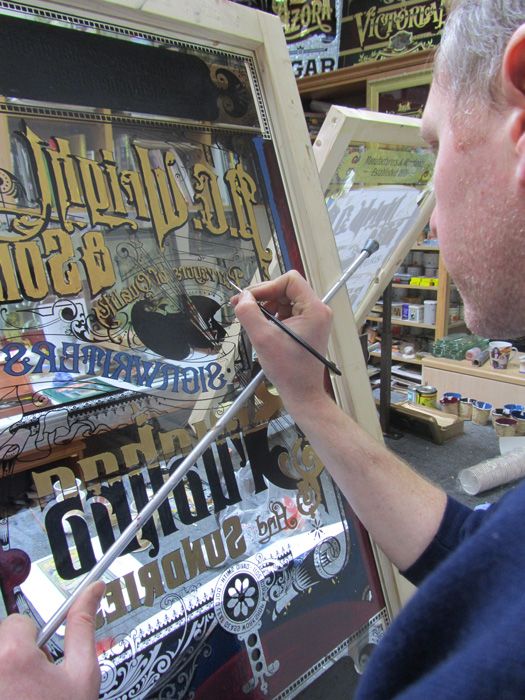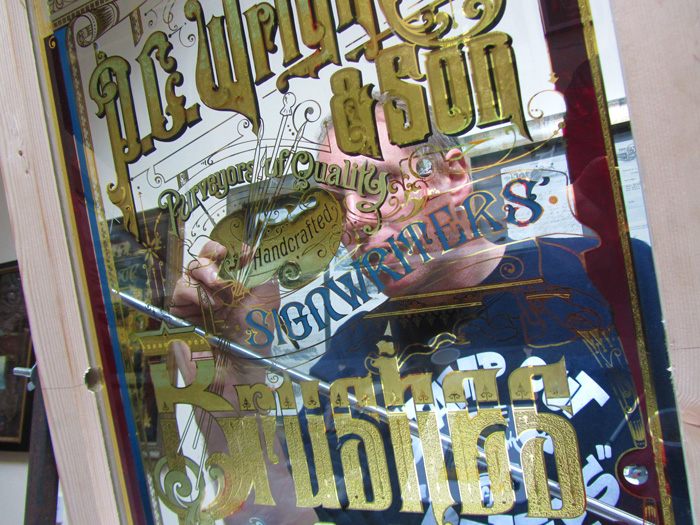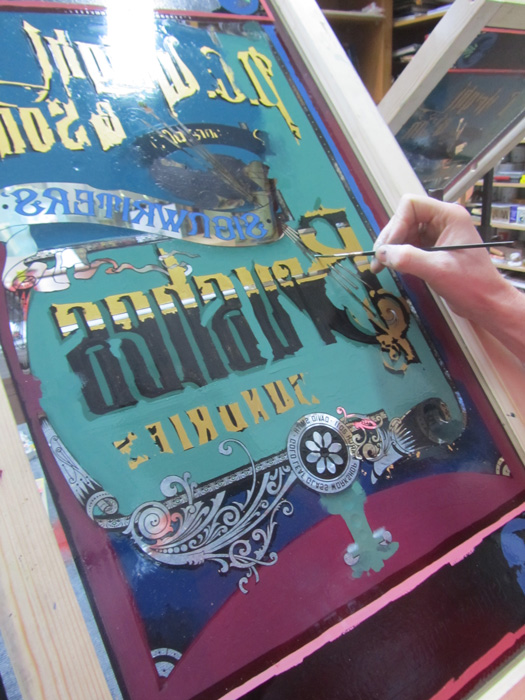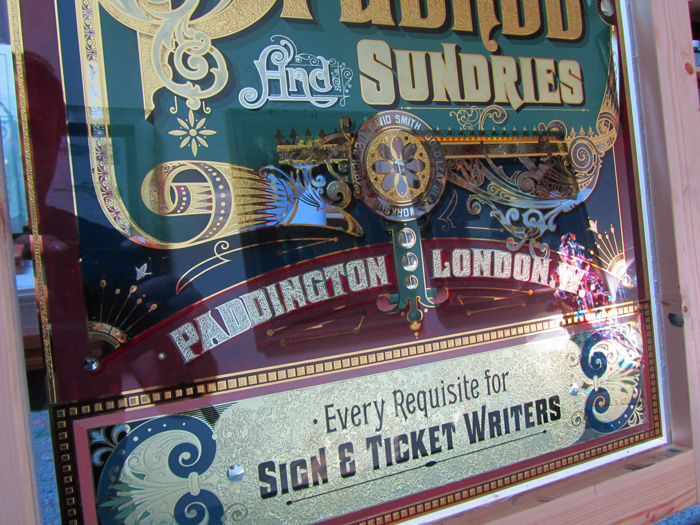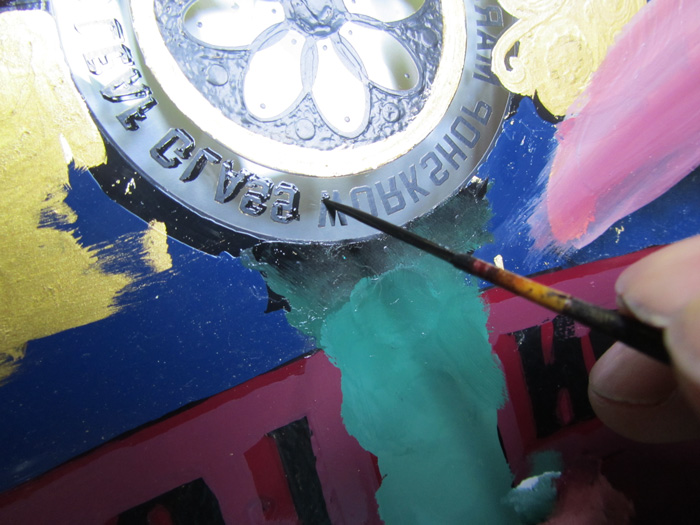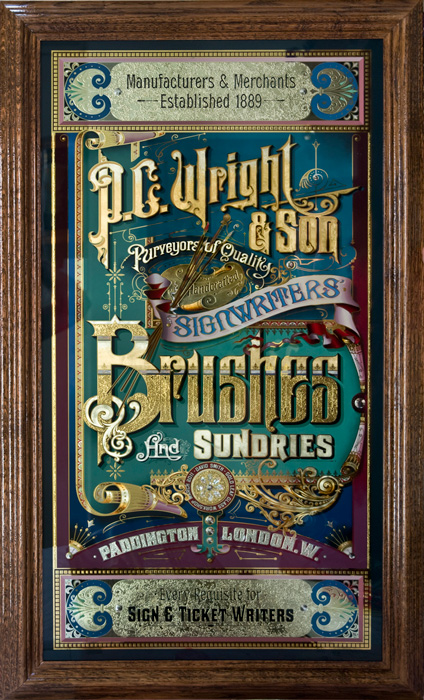
Back in March I had workshop with a talented signwriter by the name of Andrew Wright who owns with his dad a sign company at Pinewood Studios in London.
Andrew and his dad and mum run the sign company that produce alot of the signs that we see in major movies like Harry potter, James Bond, Willy Wonka , Sweeny Todd the list is endless and the effects they have done and are producing for these films are amazing. It was great to have Andrew here for 5 days on a workshop and to share some great ideas for both glass and painted signs..... I designed the glass based on an old trade card with the wording Andrew gave me , once the sign was finished it was a present for his dad..
Here are some pictures from that workshop.
Do you ever cease to amaze? Another beautiful piece!
Yes it looks very good.
Seems that there was lot of handcutting involved before the etching could be done.
Again beautifull colors...
Seems that there was lot of handcutting involved before the etching could be done.
Again beautifull colors...
Beaut work, beaut colours.
JUST BEAUTIFUL..............
Thankyou everyone. It was a great workshop,always learning new things... Andrew is a master at mixing Victorian colours... it's Andrew's colour scheme..